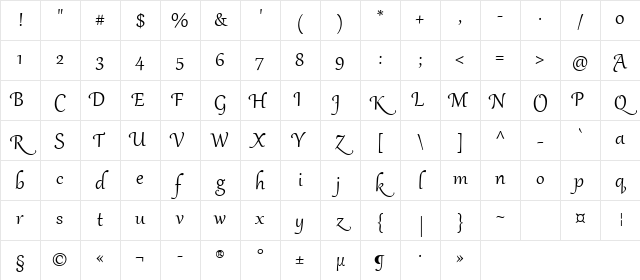
Gabriola Two Regular
Foundry: Microsoft Corporation
Designer: John Hudson
Design Context for Gabriola Two
Gabriola Two is a composed and adaptable typeface that performs quietly and consistently across a wide range of design contexts.